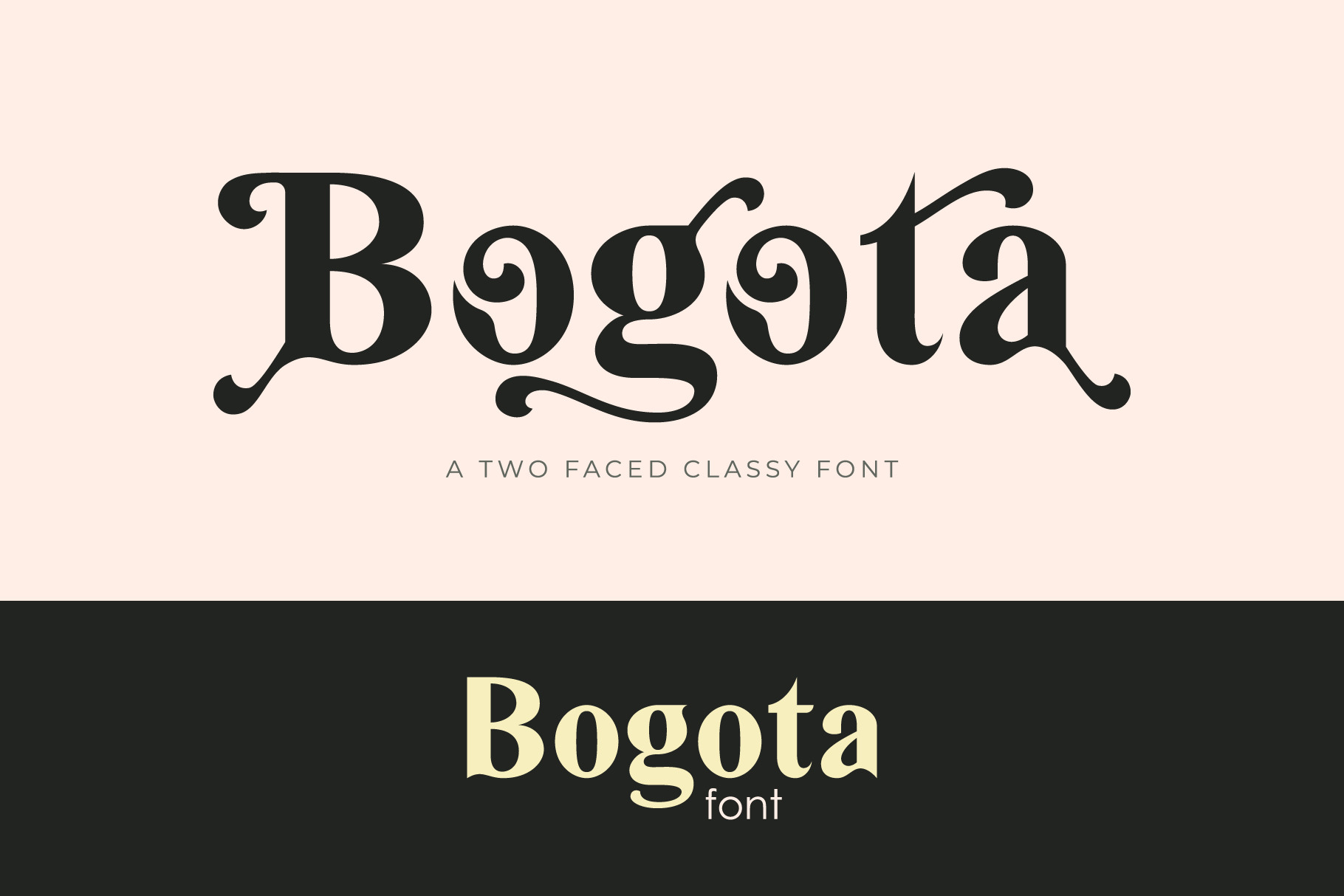
Introducing "Bogota" - A two faced classy font.
Bogota is a unique sans serif with 2 different models, choose the letters you like from large variations to get a different look. Elegant modern vintage fonts with beautiful ligature, many special alternative glyphs, and multilingual support. This is a very versatile font that works very well in large and small sizes.
Due it has 2 models with many different look, Bogota is a very versatile font, covering various types of projects, from bold magazine imagery, wedding invitations, to branding, poster design, and many others.